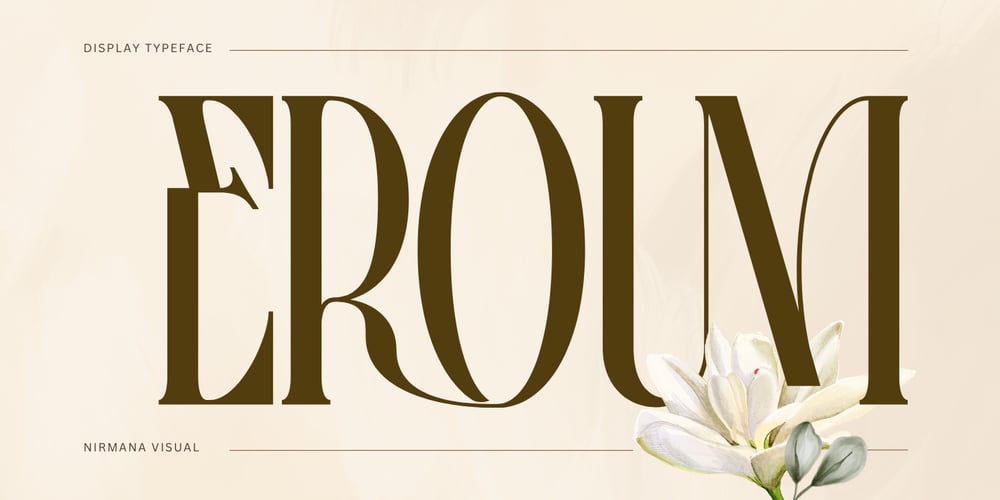
Eroum Font Family was designed by Sigit Dwipa and published by Nirmana Visual. Eroum contains 1 styles and family package options. Eroum is a modern serif font blending elegance and classic charm. With unique ligatures and multilingual support, it’s perfect for branding, editorial design, and sophisticated projects. Its refined style adds a timeless touch to your creative work.